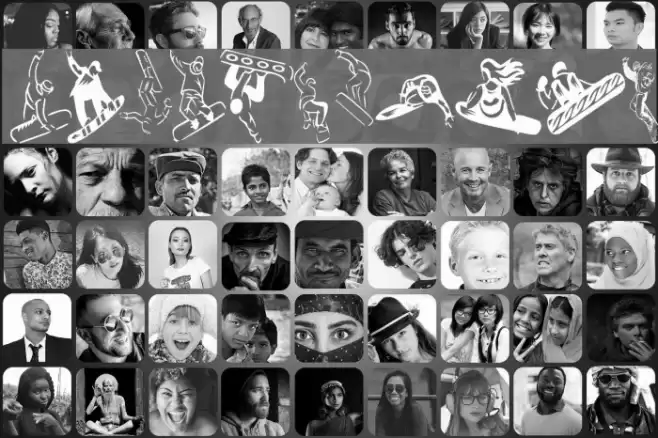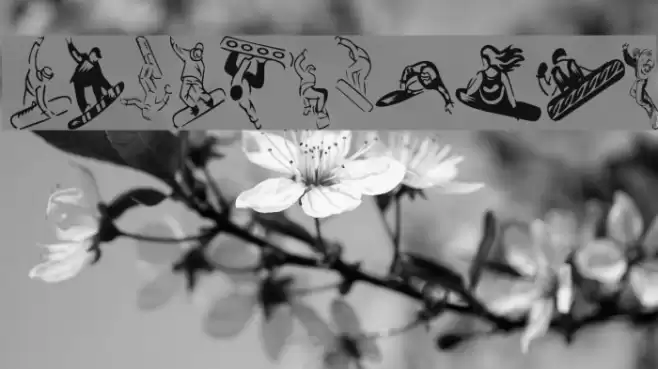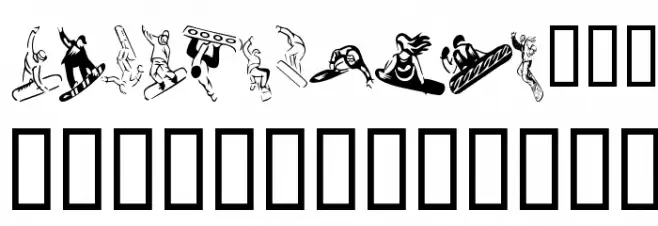
KR Snowboard Font
KR Snowboard Description
This font is a decorative and playful typeface featuring dynamic illustrations of snowboarders in action. Each character is represented by a unique snowboarding pose, capturing the thrill and excitement of the sport. The designs are bold and energetic, making them ideal for projects that aim to convey movement and adventure. The font is not suitable for traditional text but serves as a creative element for thematic designs.
- Proposed Projects: Ideal for sports event posters, winter sports branding, snowboarding merchandise, and adventurous graphic designs.
- Use Case: Logos, Posters, Merchandise